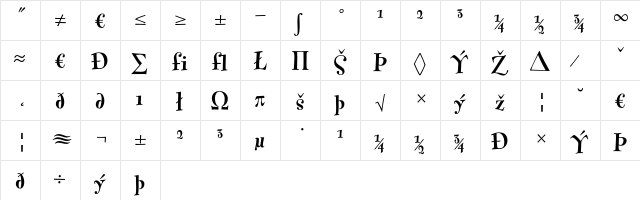
FontesqueText-BoldExpert Regular Font Preview
FontesqueText-BoldExpert Regular
FontesqueText-BoldExpert Regular Font Details
Design Context for FontesqueText-BoldExpert Typeface
FontesqueText-BoldExpert takes a measured approach to typography — its balanced proportions and neutral character make it a reliable workhorse for both digital and print work. Its bold stroke weight gives it real presence on the page.